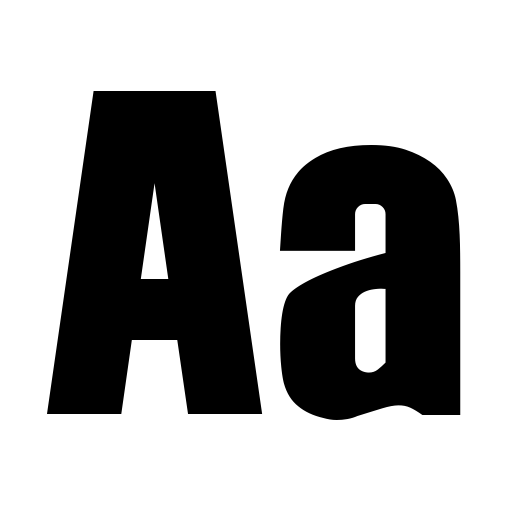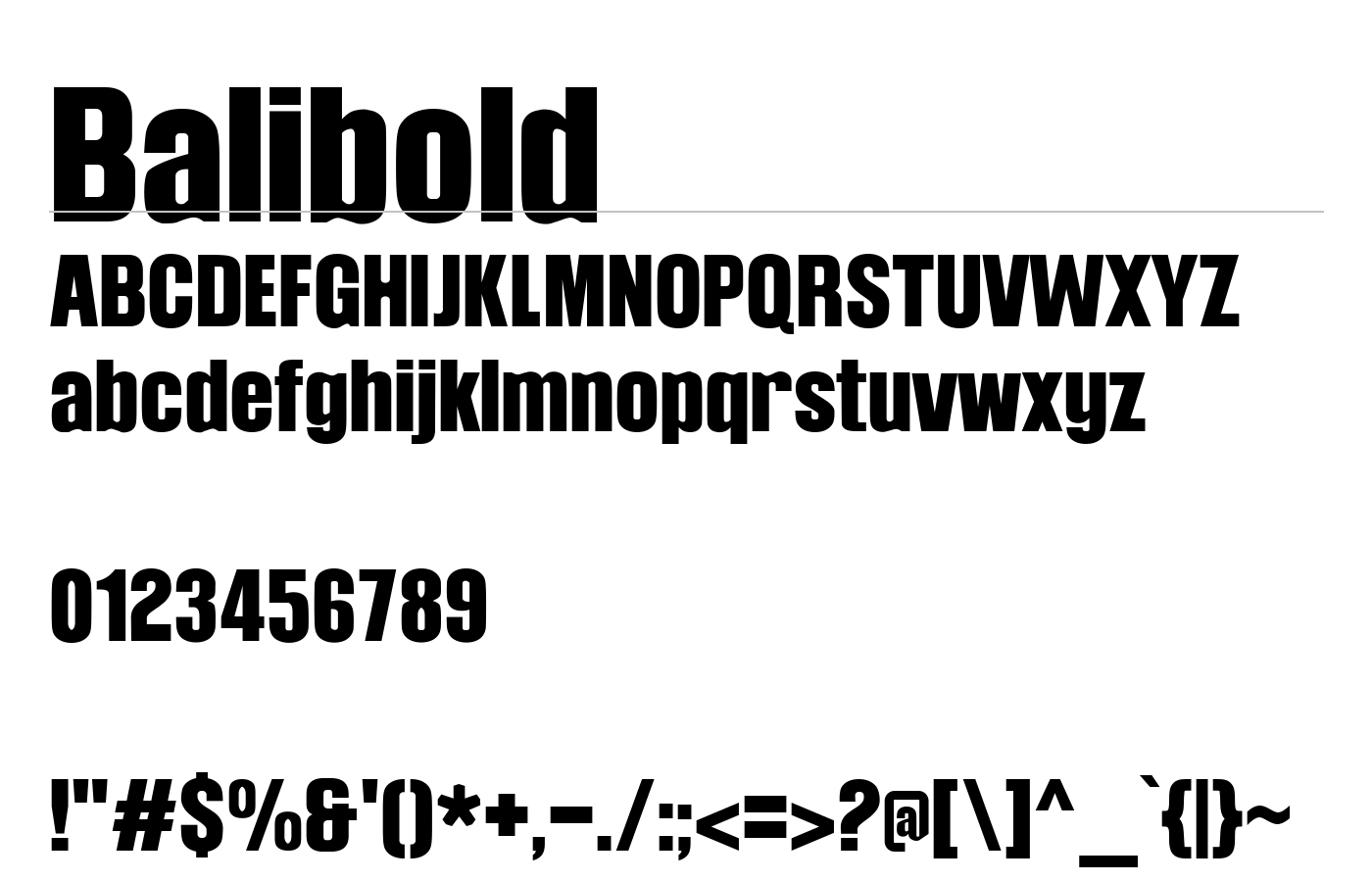
Balibold is a bold, condensed sans serif font with a strong, modern presence and a clean, straightforward design. Its high weight and tight spacing make it ideal for impactful headlines, logos, and branding where boldness and clarity are key. With its confident, no-nonsense style, Balibold is perfect for designs that need to convey strength and professionalism.
Balibold Font
About Balibold Font
| Font family | Balibold Font |
| Designer | Lambert Wahang |